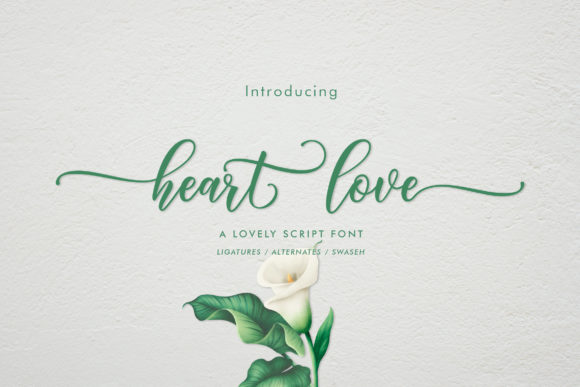
Journey into the world of enchantment with Heart Love Font, where elegance and authenticity intertwine to create a masterpiece. This script font, crafted with meticulous care by Amarlettering, is not merely a collection of characters; it's an expression of art and creativity.
Picture this: a love letter penned with Heart Love Font, its graceful curves dancing across the page like a melody. The recipient's heart will flutter with joy as they decipher the heartfelt message, written in a font that speaks of timeless romance.
Immerse yourself in the beauty of Heart Love Font, where each letter is a work of art. Its delicate strokes and sweeping flourishes evoke a sense of nostalgia and charm. Whether you're creating wedding invitations, branding materials, or heartfelt social media posts, Heart Love Font will add a touch of elegance and sophistication.
With Heart Love Font, your designs will radiate a timeless appeal that transcends trends. Its classic style, reminiscent of calligraphy from a bygone era, will lend a touch of refinement to any project. Yet, despite its classic charm, Heart Love Font retains a friendly and approachable feel, making it perfect for injecting personality into your designs.
Unlock the potential of Heart Love Font and unleash your creativity. Explore a world of endless possibilities, from whimsical Valentine's Day cards to heartfelt love notes. Let your imagination soar as you craft designs that captivate and inspire.